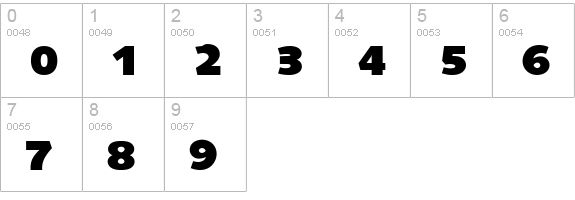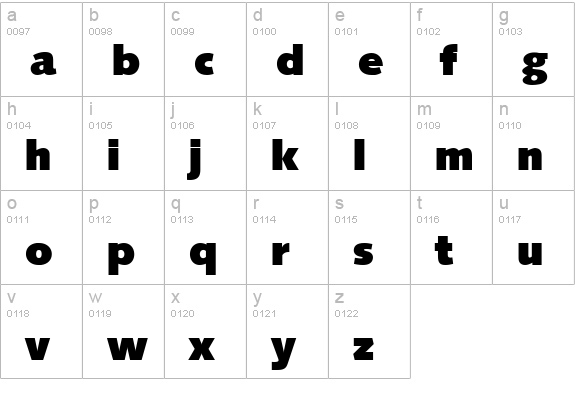
Lansette Display SSi Font Details
Lansette Display SSi is a visually stunning font that exudes elegance and sophistication. With its sleek and modern design, this font is perfect for adding a touch of refinement to any project. Whether you're creating a logo, designing a website, or working on a branding project, Lansette Display SSi will make a bold statement. What sets this font apart is not just its beautiful aesthetics, but also its versatility. It can be used in a variety of contexts, from fashion and beauty to luxury and lifestyle. Its clean lines and sharp edges give it a contemporary feel, while its subtle curves add a hint of softness and femininity. But what makes Lansette Display SSi truly special is that it is available for free. Yes, you read that right - this incredible font can be downloaded for free at FontsMarket.com. This means that you can enjoy all the benefits of this premium font without having to spend a dime. Whether you're a professional designer or a hobbyist, Lansette Display SSi will be a valuable addition to your font collection. Its versatility, elegance, and availability make it a must-have for anyone looking to elevate their designs. So why wait? Head over to FontsMarket.com and download Lansette Display SSi for free today.